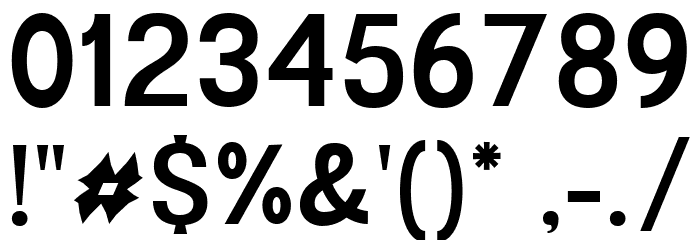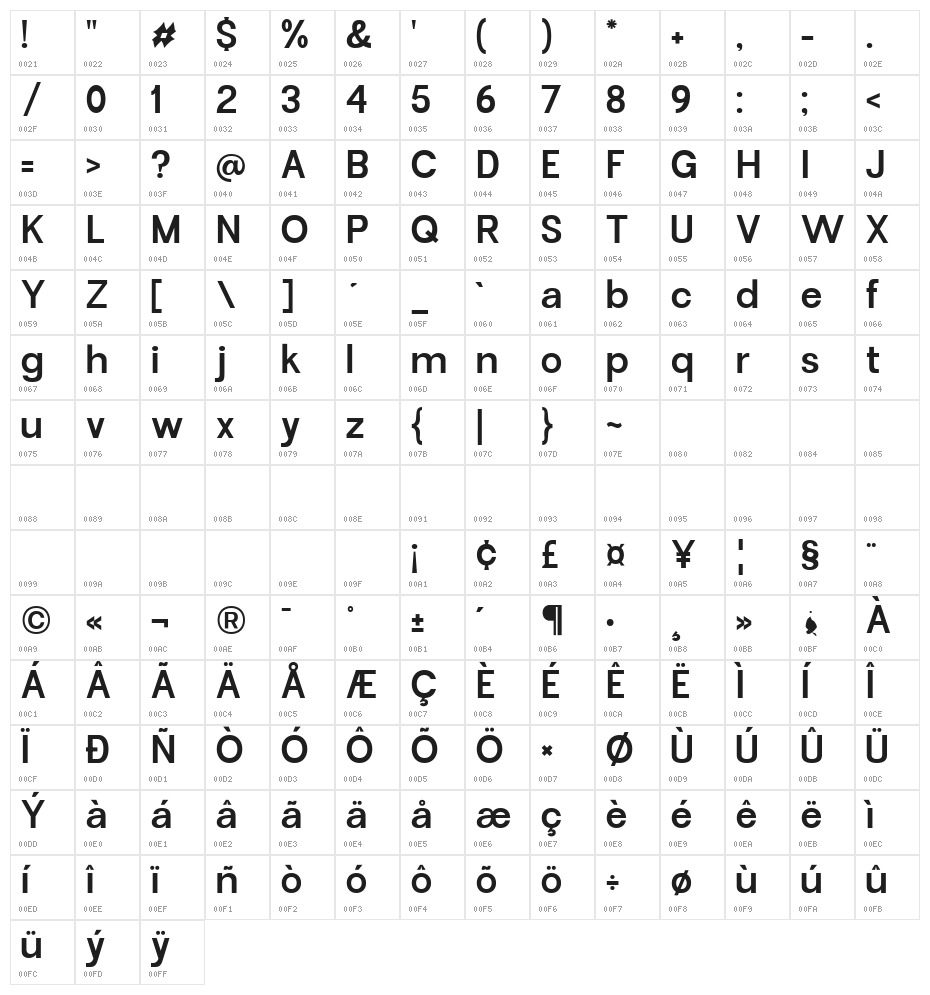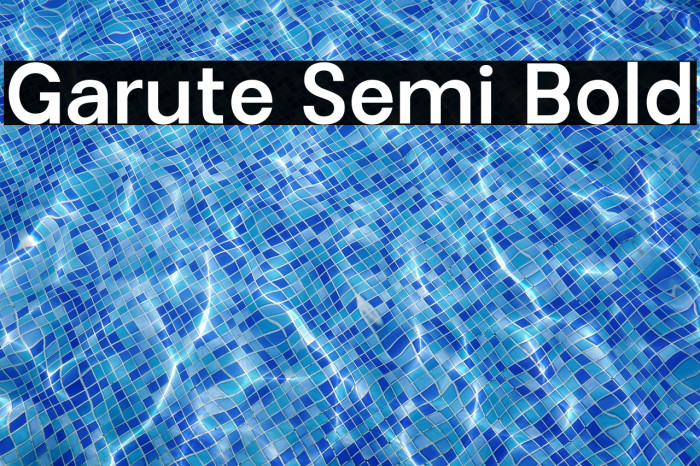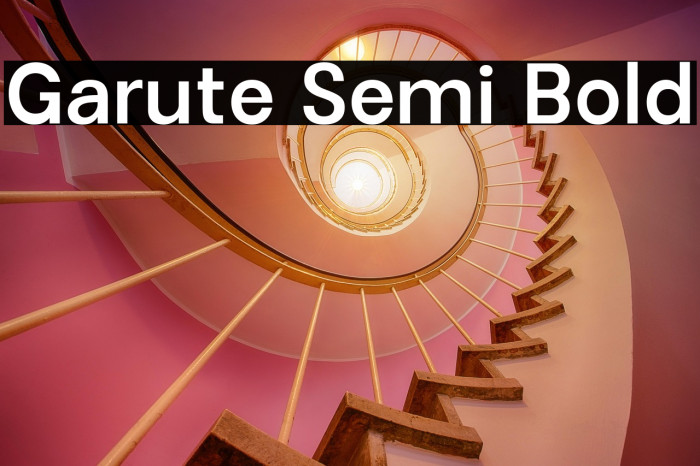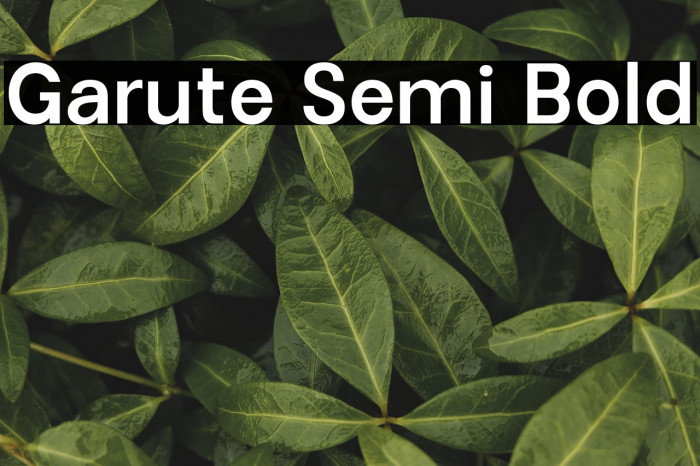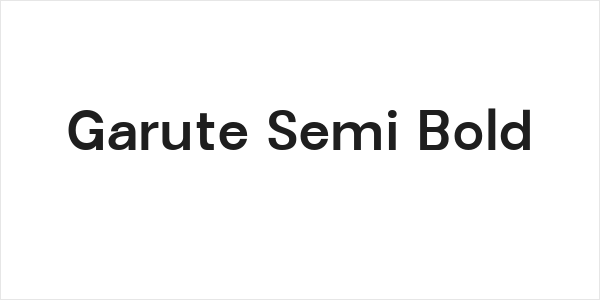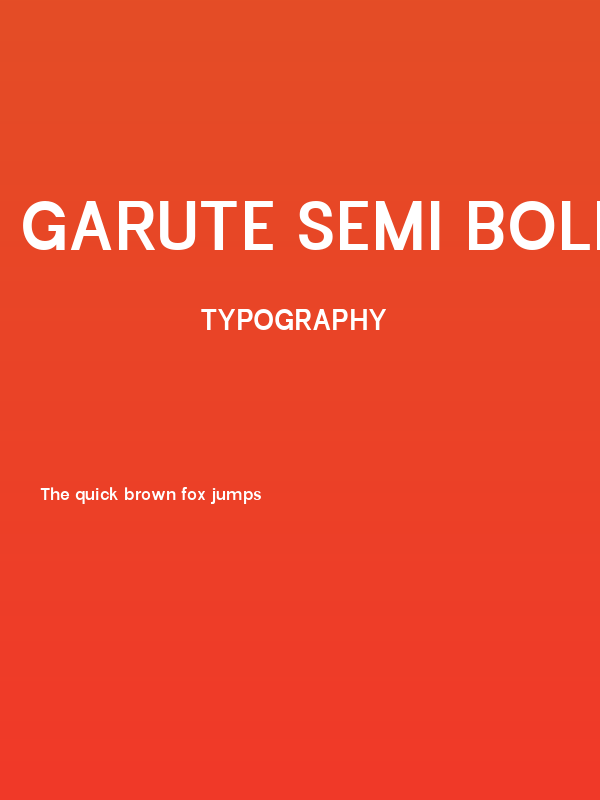
Garute Semi Bold Font
Garute Semi Bold Description
This font exhibits a clean and modern sans-serif style with a semi-bold weight. The characters are well-defined with a uniform stroke width, providing a balanced and professional appearance. The uppercase letters are slightly taller than the lowercase, maintaining a consistent height across the alphabet. The numerals are clear and easy to read, making them suitable for both digital and print media. Special characters are distinct and match the overall aesthetic of the font. The spacing between characters is normal, ensuring readability without appearing cramped. This font is versatile, suitable for a variety of applications from branding to body text.